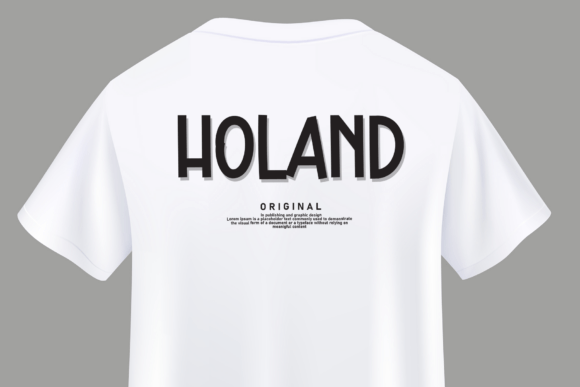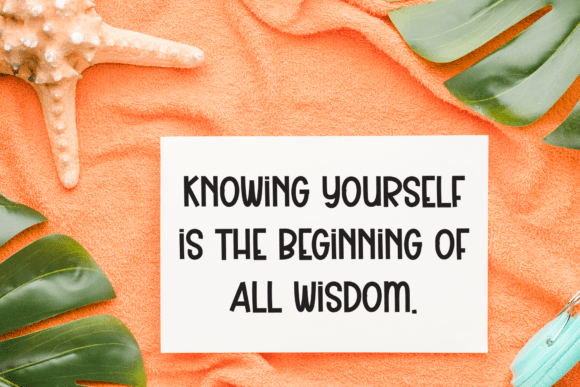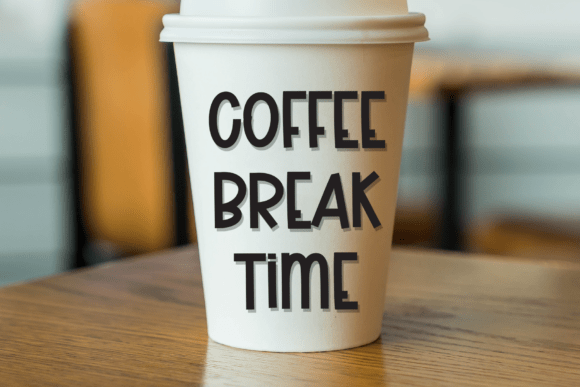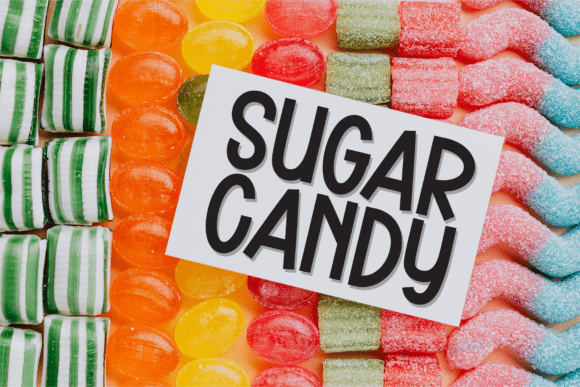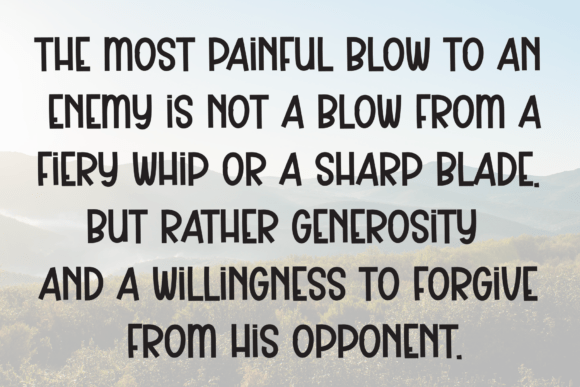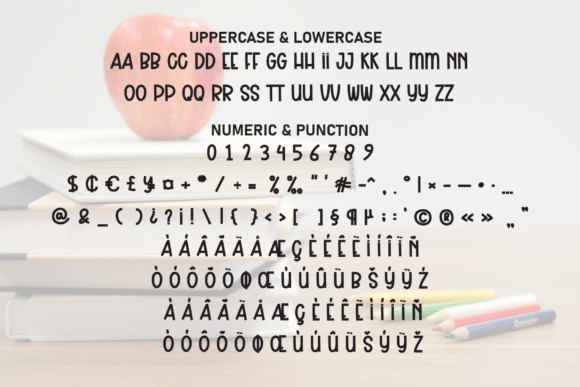
Bringing Words to Life with the Book Cartoon Font
Remember the moment you stumbled upon a beautifully designed wedding invitation that made your heart skip a beat? For many of us, it’s a memory that stays etched in our minds long after the special day has passed. The secret to its charm often lies in the thoughtful and playful font used to convey the message.
Introducing the Book Cartoon Font, a delightful handwritten display font that exudes charm and appeal. This captivating font is the perfect choice for crafting thoughtful wedding invitations, delightful cards, and other designs that call for a touch of whimsy and personality. With its playful and lighthearted nature, it provides a vibrant touch of fun, setting it apart from the ordinary.
Key Features of Book Cartoon Font
- Font Family: Book Cartoon Font is a unique, hand-drawn font that offers a playful and whimsical feel.
- Unique Characteristics: Features intricate details, subtle texture, and a mix of uppercase and lowercase letters to create a visually appealing effect.
Book Cartoon Font Review
Overall, I think the Book Cartoon Font has some nice qualities that could work well for specific projects. ✨ The font is quite playful and has a friendly feel to it, which could be perfect for children’s books or other kid-friendly materials. The rounded edges and the way the letters curve give it a soft, approachable look that could help put readers at ease.
Here are some specific things that I think work well with this font:
- ✨ Friendly and approachable feel
- ✨ Playful and fun, great for kids or creative projects
- ✨ Soft, rounded edges make it easy on the eyes
However, I do have some concerns about this font. ⚠️ The letters can look a bit cluttered at larger font sizes, and the uneven spacing between some letters can make it difficult to read. Additionally, the font may not be suitable for formal or professional projects, as it can come across as too casual or childish.
Overall, I think the Book Cartoon Font has some nice qualities, but it’s not a font that I would recommend for all projects. It’s best suited for projects where a playful, friendly feel is desired, but it may not be the best choice for more formal or professional work.
Book Cartoon Font is perfect for:
- Children’s book covers and illustrations
- Playful blog posts and articles
- Whimsical social media graphics
- Fun and creative presentations